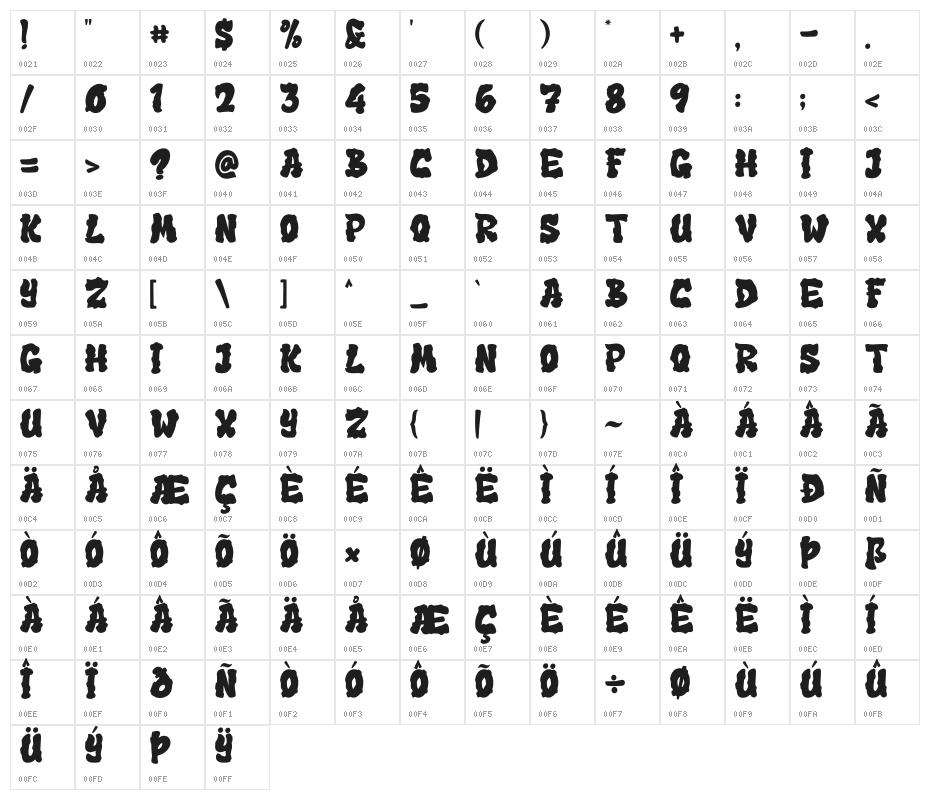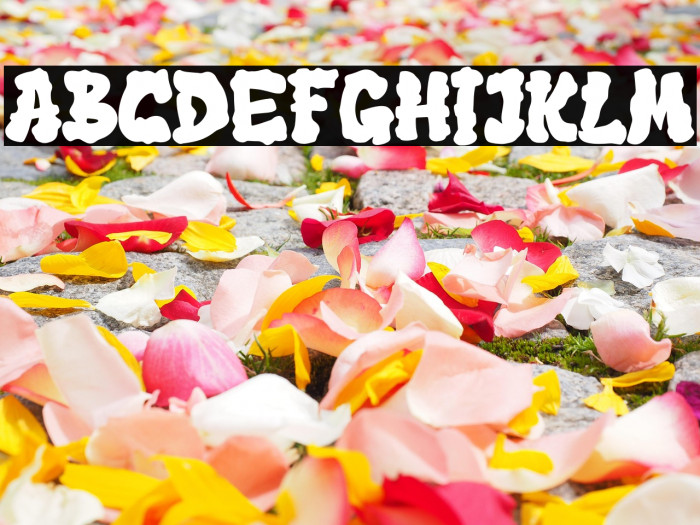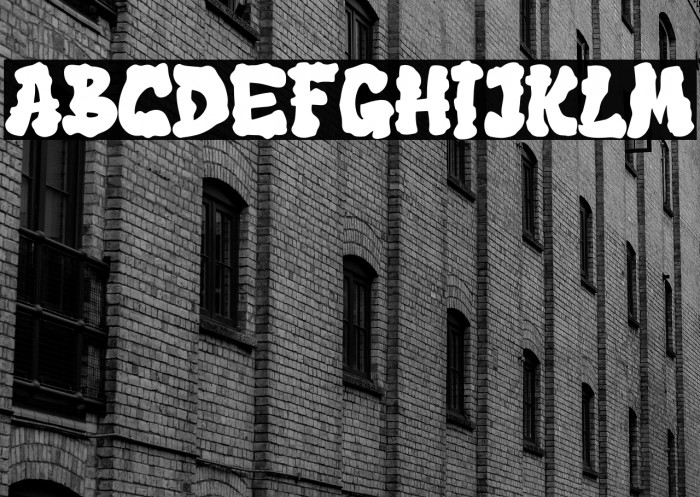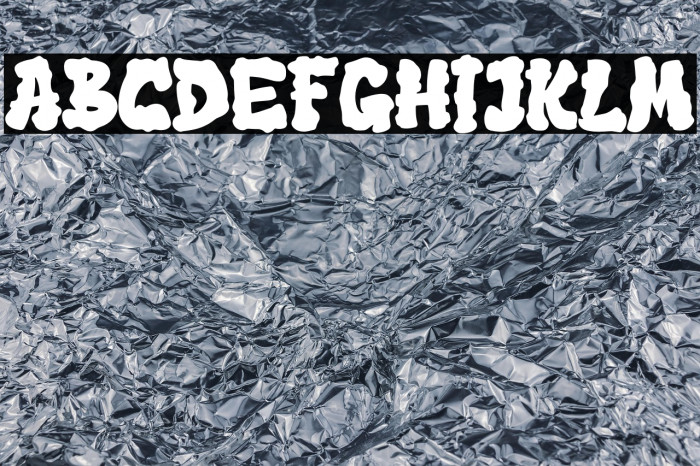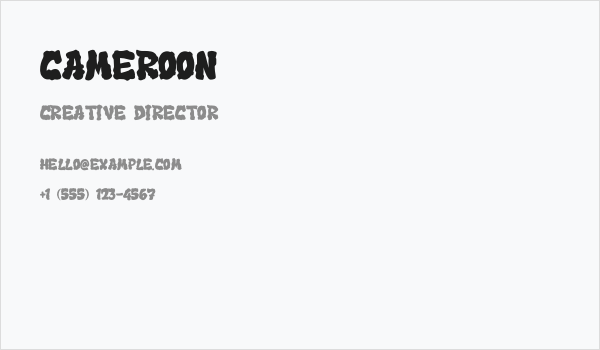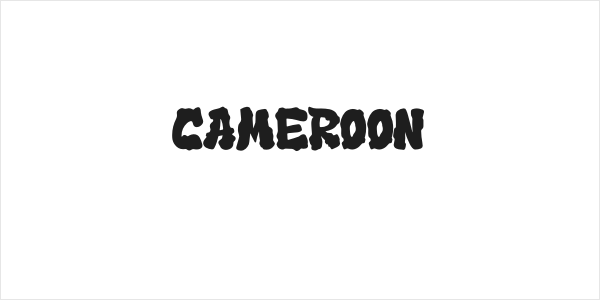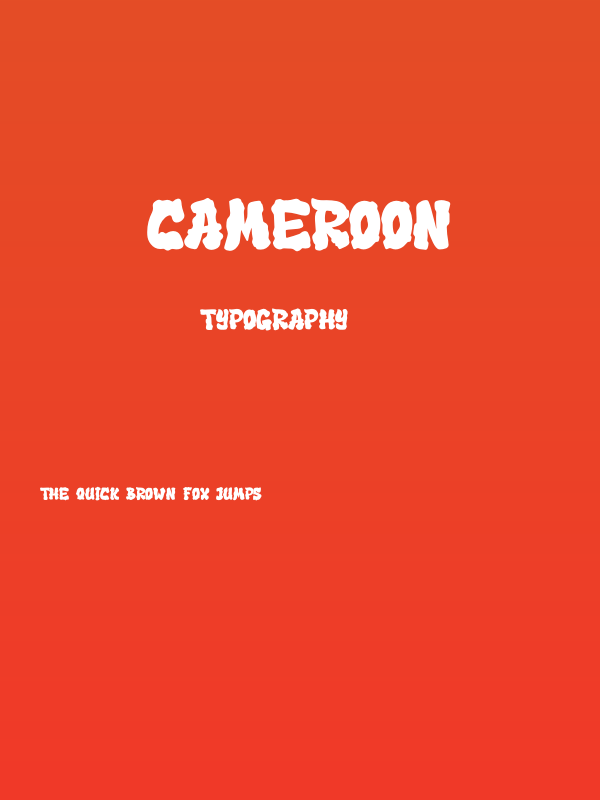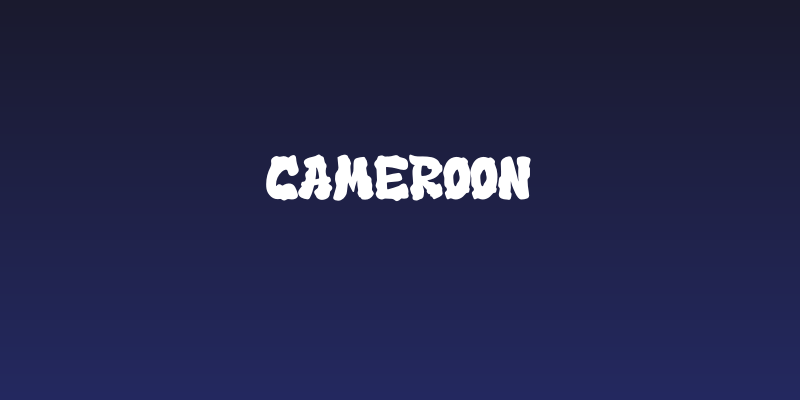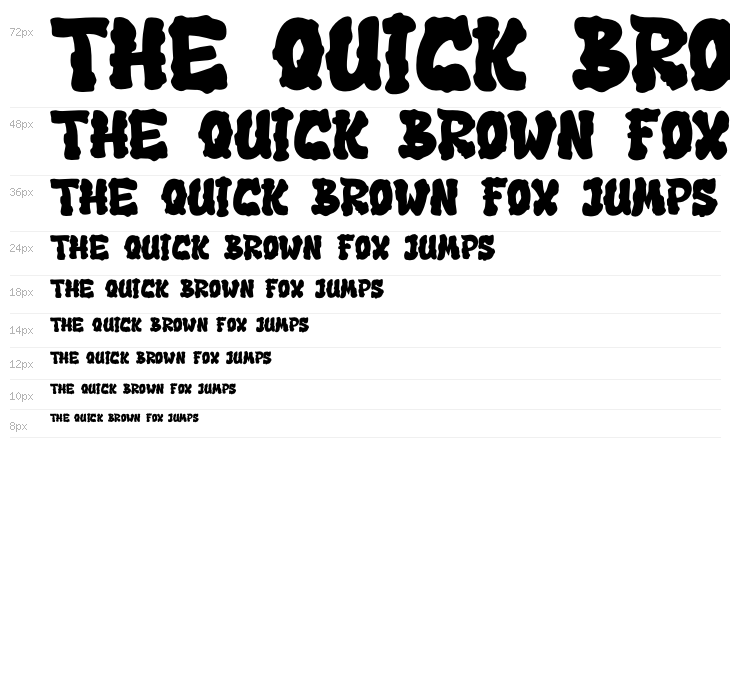
Cameroon Font
Cameroon Description
This font features a bold and playful design with thick, irregular strokes that give it a lively and dynamic appearance. The characters are rounded and slightly distorted, creating a sense of movement and energy. The font has a hand-drawn, organic feel, making it suitable for creative and informal projects. Its unique style is eye-catching and can add a fun, whimsical touch to any design.
| Overall Style | Playful, Whimsical |
| Use Case | Headlines, Posters, Branding |
| Proposed Projects | Ideal for children's books, playful branding, event posters, and creative social media graphics. |